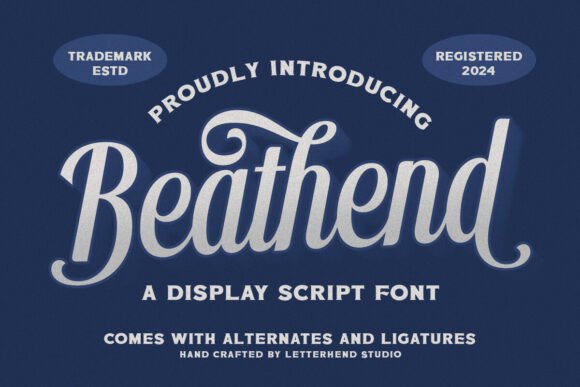
Beathend Font: Elevate Your Brand with Elegance and Sophistication
In the world of typography, fonts play a crucial role in shaping the identity of a brand. A well-designed font can instantly convey a message, evoke emotions, and create a lasting impression. Among the numerous fonts available, Beathend stands out as a sophisticated display script font that embodies elegance and vintage charm. In this article, we’ll explore the features, benefits, and applications of Beathend Font, and how it can elevate your brand to new heights.
What is Beathend Font?
Beathend is a carefully crafted display script font that combines smooth curves and bold strokes, resulting in a unique and captivating visual experience. Its elegant design makes it an ideal choice for branding, logos, packaging, and promotional materials. The font’s classic appeal is perfect for creating a sophisticated and luxurious feel, which is essential for high-end brands.
Key Features and Benefits of Beathend Font
- Smooth Curves and Bold Strokes: Beathend’s distinctive design combines smooth curves and bold strokes, creating a visually appealing contrast that adds depth and character to your text.
- Elegant and Vintage Charm: The font’s classic appeal is perfect for creating a sophisticated and luxurious feel, making it ideal for high-end brands.
- Alternates and Ligatures: Beathend comes with a range of alternates and ligatures, allowing for creative customization and versatility in your designs.
- Branding and Logo Design: The font’s unique design makes it perfect for creating memorable logos and branding materials that stand out from the crowd.
- Packaging and Promotional Materials: Beathend’s elegant design makes it suitable for packaging and promotional materials, such as business cards, brochures, and posters.
Applications of Beathend Font
Beathend Font is a versatile typeface that can be used in a variety of applications, including:
- Branding and Logo Design: Create a lasting impression with a unique and memorable logo that reflects your brand’s personality.
- Packaging Design: Add a touch of elegance to your product packaging and make it stand out on store shelves.
- Promotional Materials: Use Beathend Font to create eye-catching business cards, brochures, posters, and other promotional materials.
- Advertising and Marketing: The font’s bold and elegant design makes it perfect for headlines, titles, and other advertising materials.
- Web Design: Use Beathend Font to create a sophisticated and luxurious feel for your website, making it perfect for high-end brands and businesses.
Customizing Beathend Font for Your Brand
Beathend Font comes with a range of alternates and ligatures, allowing you to customize the font to suit your brand’s unique needs. With its OpenType features, you can easily access and apply different stylistic sets, ligatures, and alternates to create a distinctive look for your brand.
To customize Beathend Font, you can use font editing software or online tools that support OpenType features. This allows you to:
- Swap Alternates: Replace default characters with alternate glyphs to create a unique look.
- Add Ligatures: Use ligatures to connect letters and create a flowing, cursive effect.
- Adjust Stylistic Sets: Apply different stylistic sets to change the font’s appearance and create a distinctive look.
Tips for Using Beathend Font Effectively
To get the most out of Beathend Font, here are some tips to keep in mind:
- Use it Sparingly: Beathend Font is best used sparingly, as a display font or for headlines, to create a lasting impression.
- Pair it with a Sans-Serif Font: Pair Beathend Font with a sans-serif font for body text to create a harmonious contrast.
- Experiment with Colors: Try out different colors and textures to add depth and visual interest to your designs.
- Pay Attention to Kerning: Adjust the kerning to ensure that the letters flow smoothly and elegantly.
Beathend Font is a sophisticated display script font that embodies elegance and vintage charm. Its unique design, smooth curves, and bold strokes make it perfect for branding, logos, packaging, and promotional materials. With its alternates and ligatures, Beathend Font offers creative customization and versatility, allowing you to create a distinctive look for your brand. By following the tips outlined in this article, you can use Beathend Font effectively and elevate your brand to new heights.